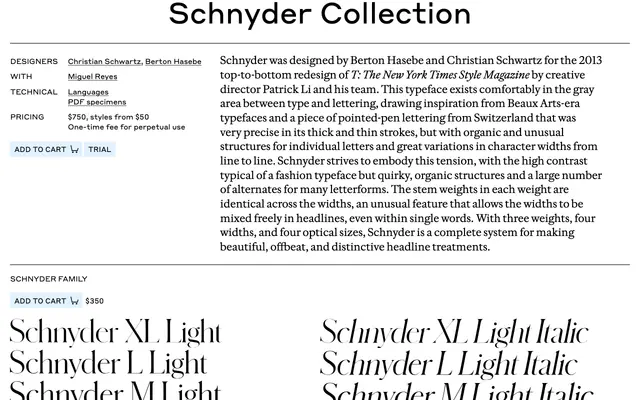
Schnyder
Commercial Type · Berton Hasebe · 2014
A high contrast didone with four optical sizes and four widths from X Condensed to Wide, used widely in fashion and editorial.
A high contrast display serif from Commercial Type, designed by Berton Hasebe with Miguel Reyes. The system runs three weights, Light, Demi and Bold, across four optical sizes from S to XL and four widths from X Condensed to Wide, with italics throughout the standard and condensed cuts. Reach for it on fashion editorial, masthead and luxury identity work where you want didone contrast that can flex from caption to billboard.
Commercial Type list Schnyder with Miguel Reyes. A high contrast didone with broad optical size and width coverage across four widths (Wide, Standard, Condensed, X Condensed) and four optical sizes (XL, L, M, S).